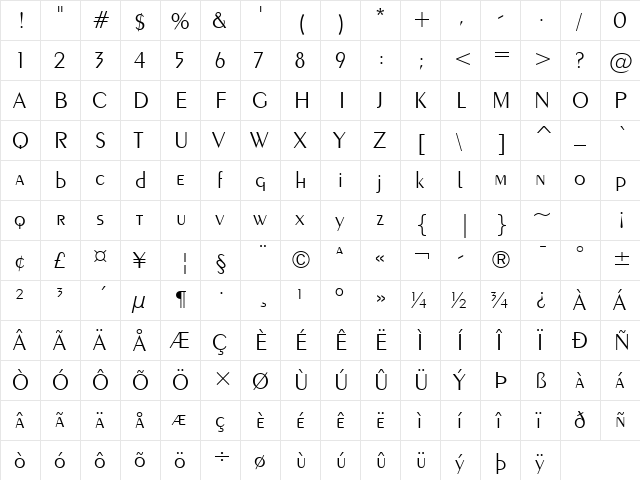
Exotc350 Lt BT Light Font Preview
Exotc350 Lt BT Light
Design Context for Exotc350 Lt BT Typeface
Exotc350 Lt BT is a composed and adaptable typeface that performs quietly and consistently across a wide range of design contexts. The delicate stroke weight brings airiness and refinement to layouts.